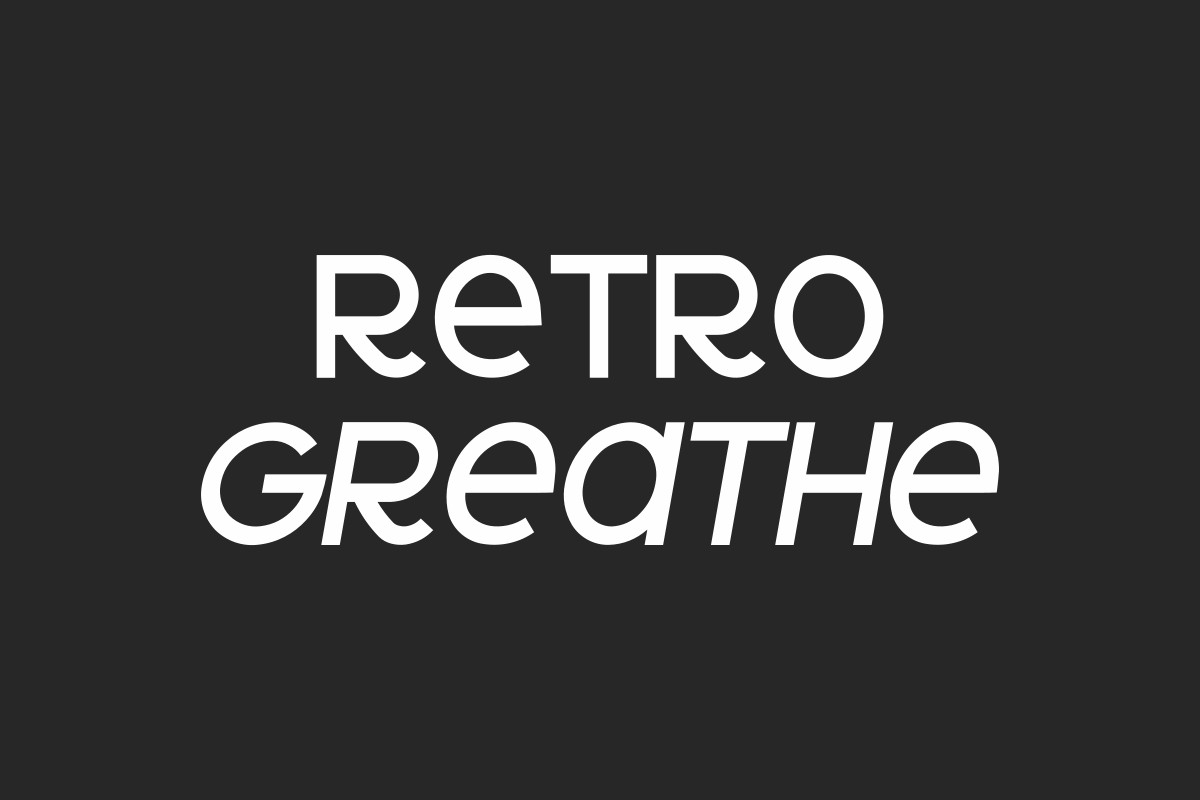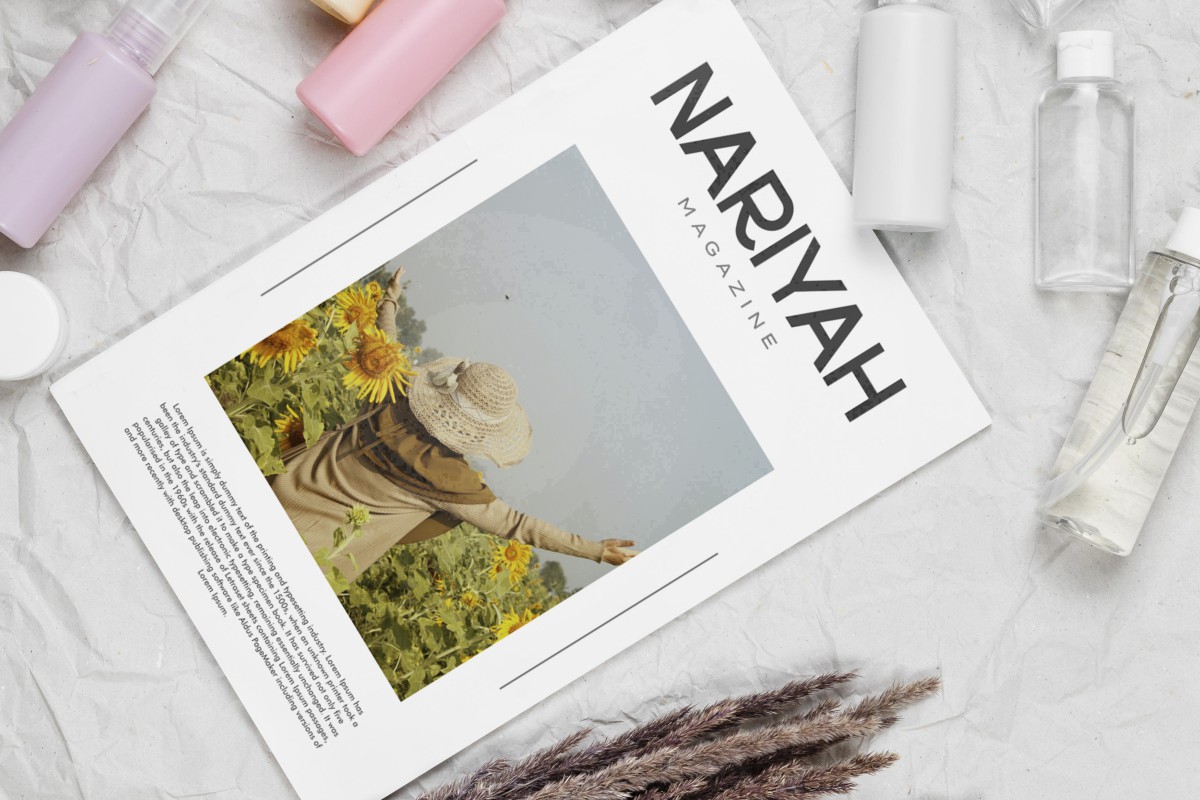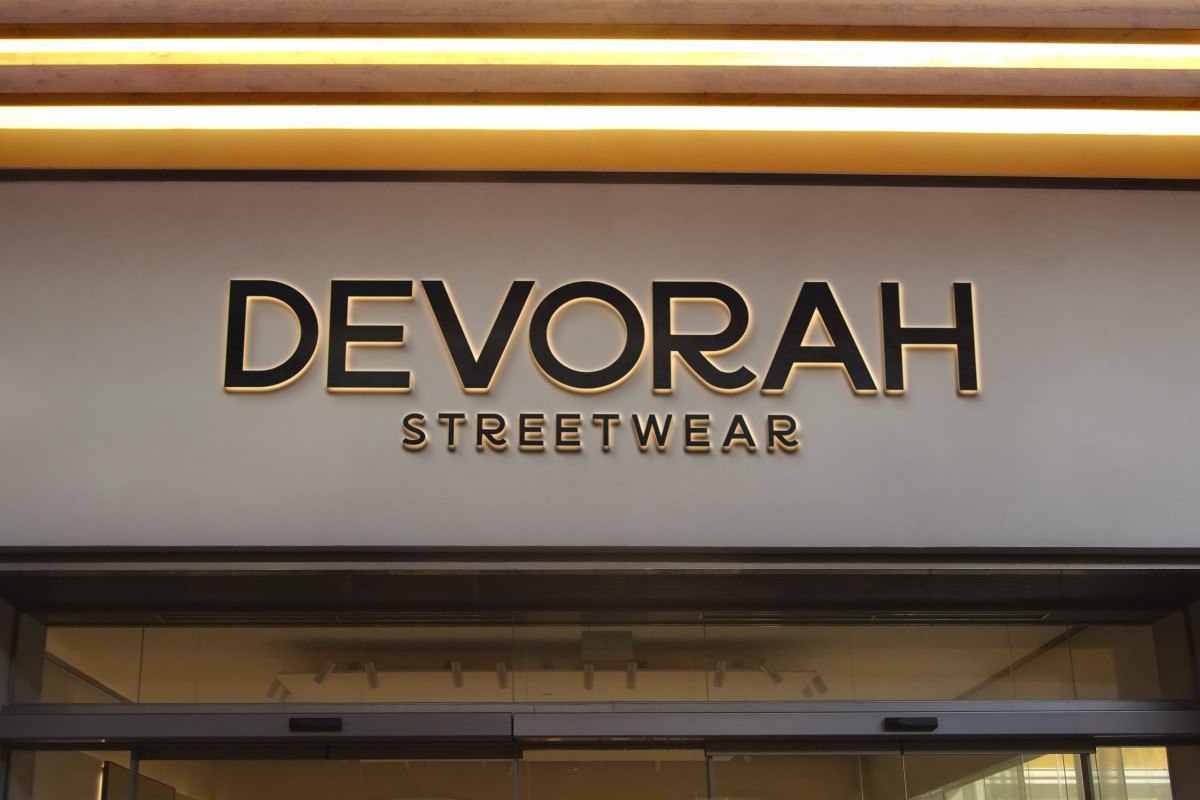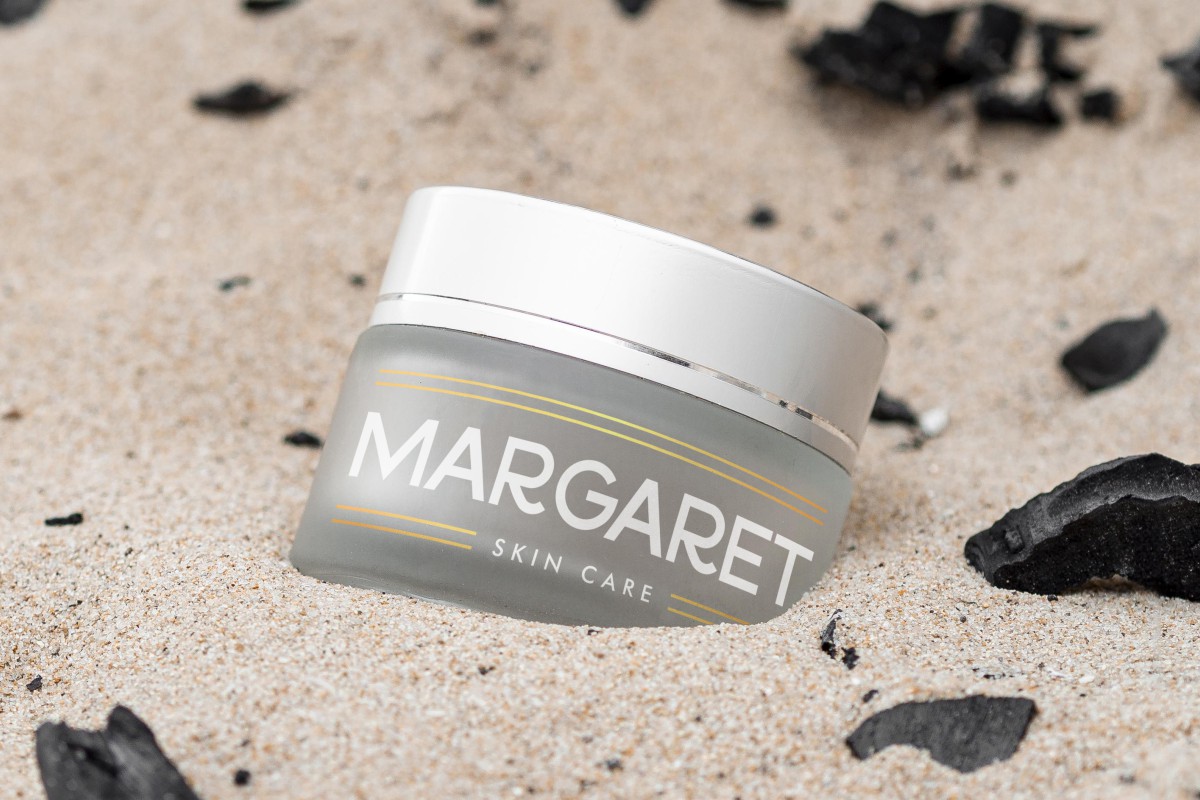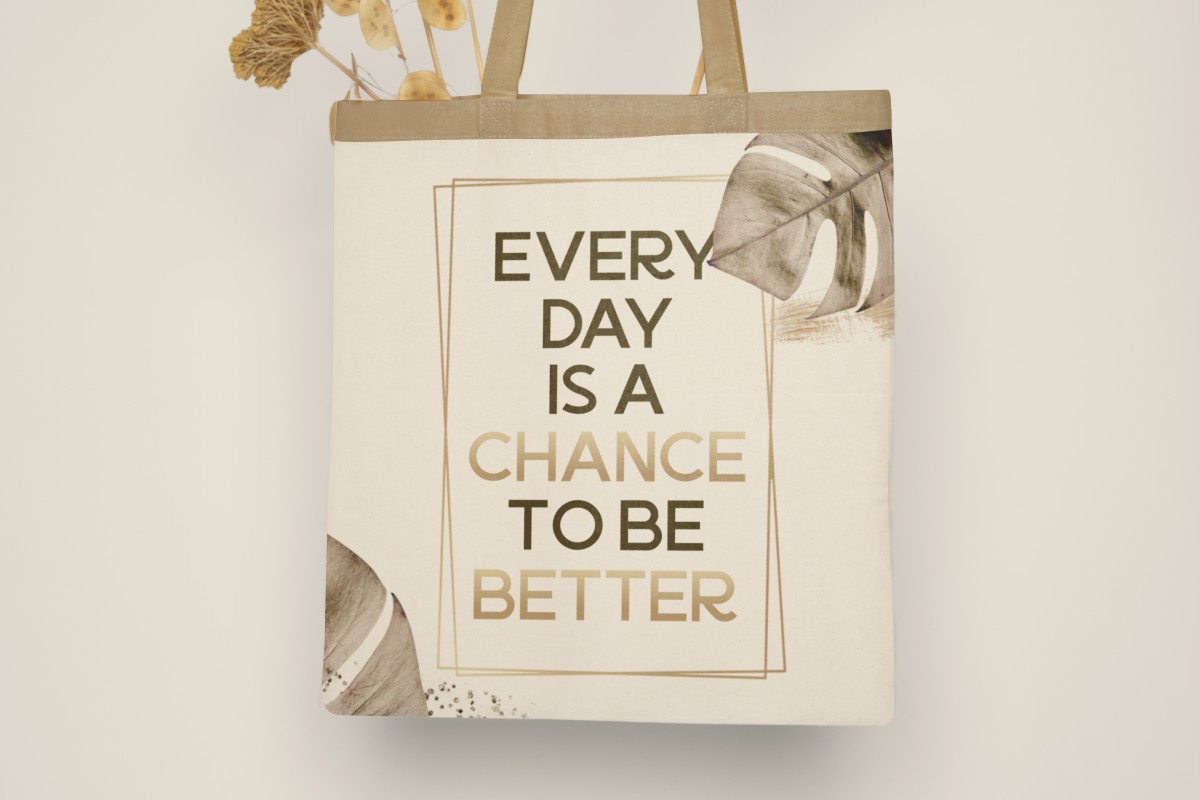
Retro Greathe Sans Serif Font is a modern and unique sans serif display font with two style options: Regular and Italic. The font is perfect for many industries, such as art gallery, apparel, cosmetic, event or wedding organizer, fashion, homeware, jewelry, printing, publishing, restaurant, and more!
Retro Greathe Font includes full set of Uppercase and lowercase Basic Characters, Numerals and Punctuation. This font would be perfect for designs that require a unique and stylish vibe. Use this font for your perfect projects, such as box jewelry, magazine catalog, mockup, packaging design, quote, screen printing, signage, stationery, etc.